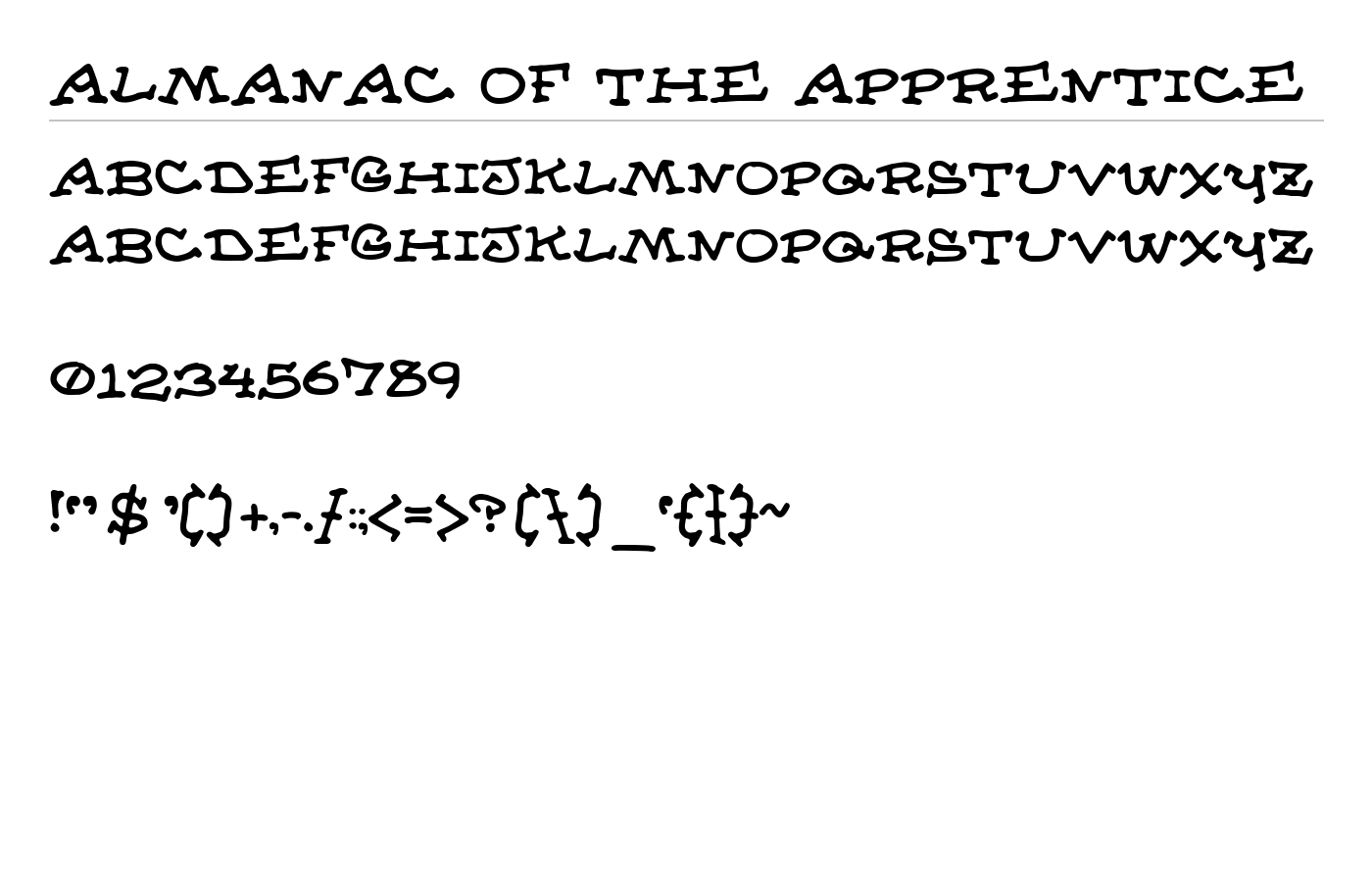
Almanac of the Apprentice is a playful, hand-drawn serif font with a whimsical and slightly rough appearance, making it feel casual and creative. Its bold, uneven strokes and quirky letter shapes give it a distinct personality that works well for artistic projects, informal headlines, or themed branding where a friendly, approachable vibe is desired. This font shines in designs looking to evoke charm and originality, such as posters, book covers, or creative packaging.
Almanac of the Apprentice Font
About Almanac of the Apprentice Font